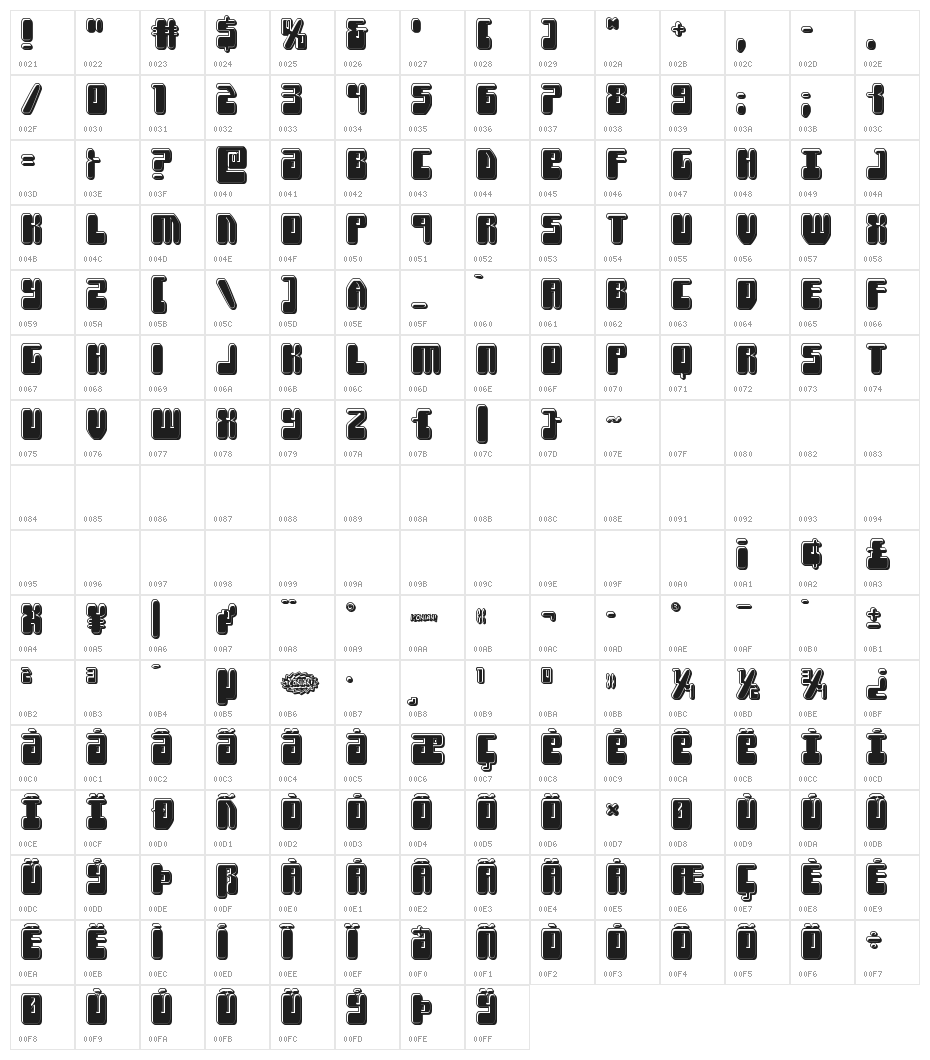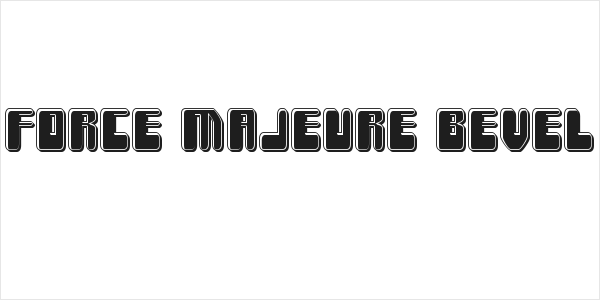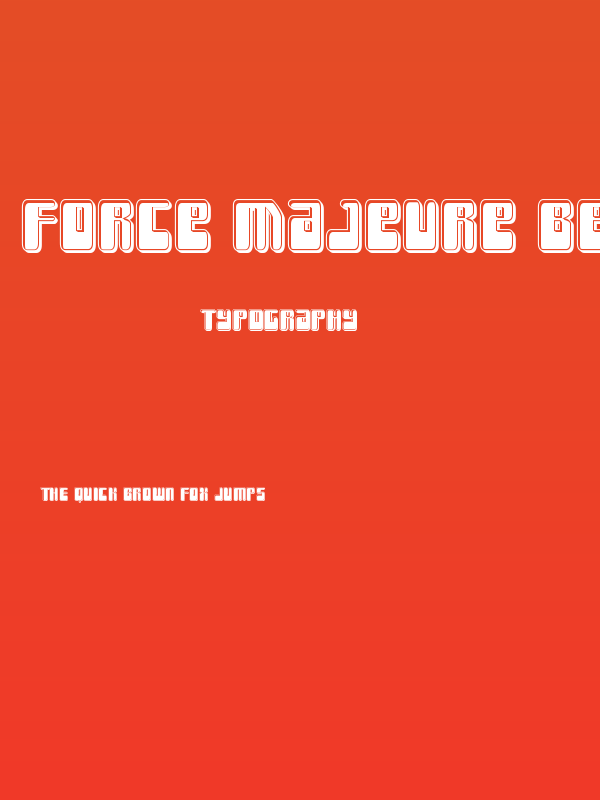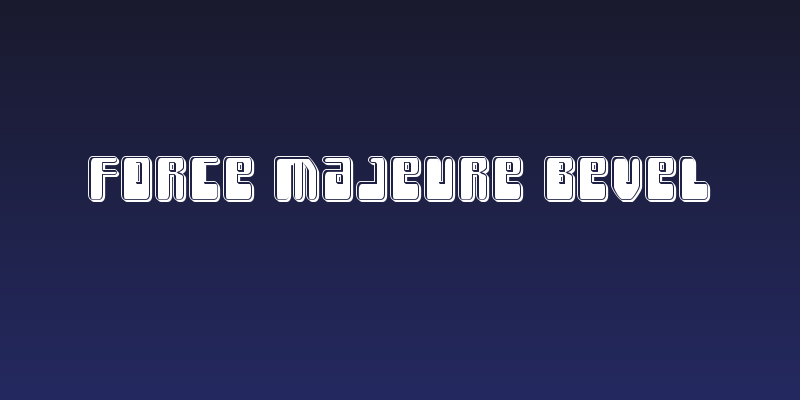
Force Majeure Bevel Font
Force Majeure Bevel Description
This font features a bold, geometric design with a distinct beveled effect, giving it a three-dimensional appearance. The characters are uniformly thick, with rounded edges that soften the overall look. The uppercase and lowercase letters maintain a consistent style, with the numbers and special characters following suit. The font's strong presence makes it ideal for attention-grabbing headlines or logos. Its unique style is both modern and slightly retro, reminiscent of arcade or digital themes. The spacing between characters is tight, enhancing its compact and impactful look.